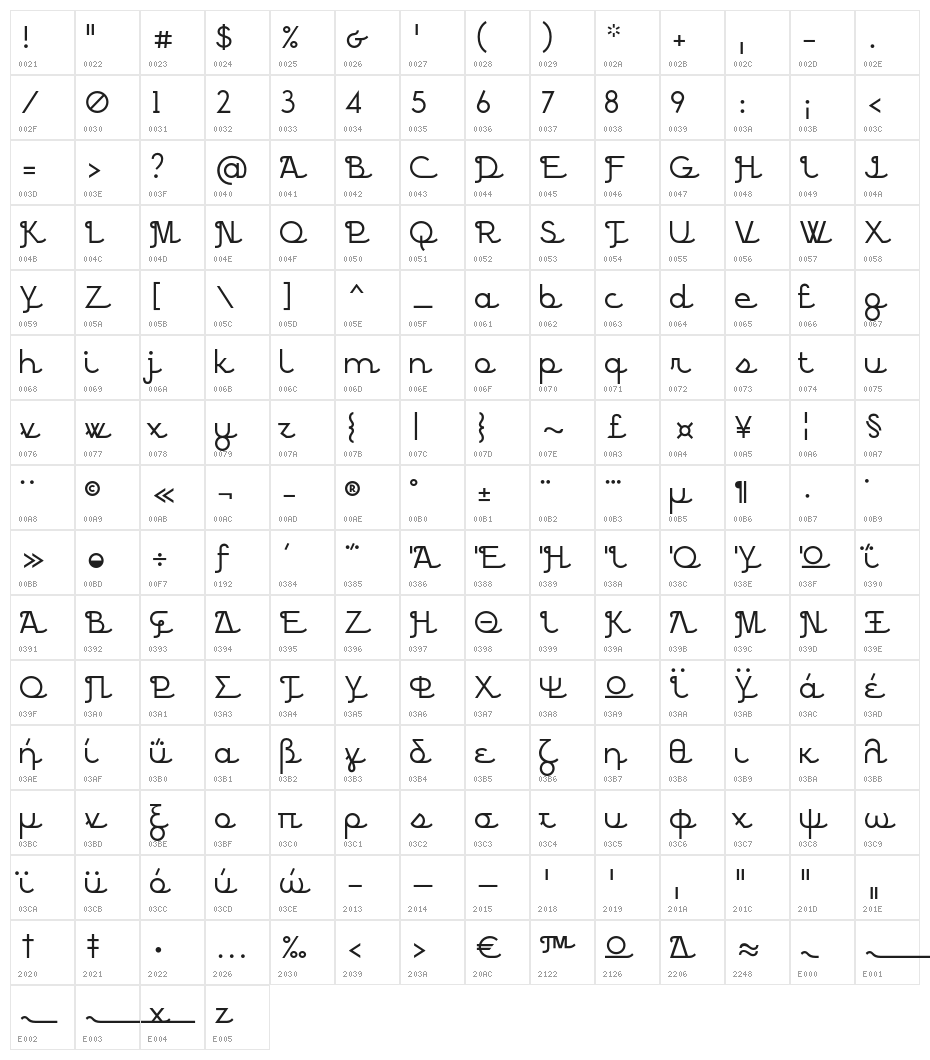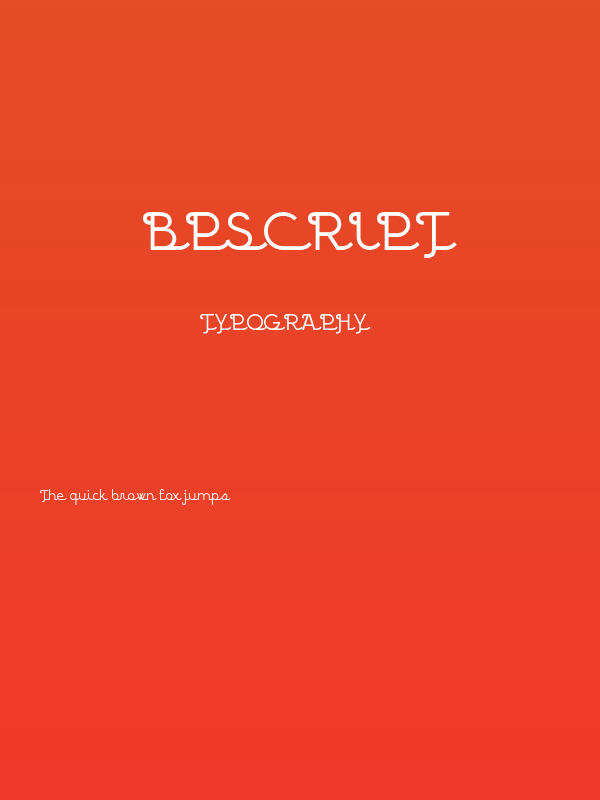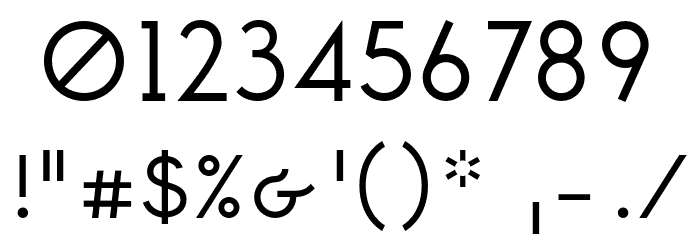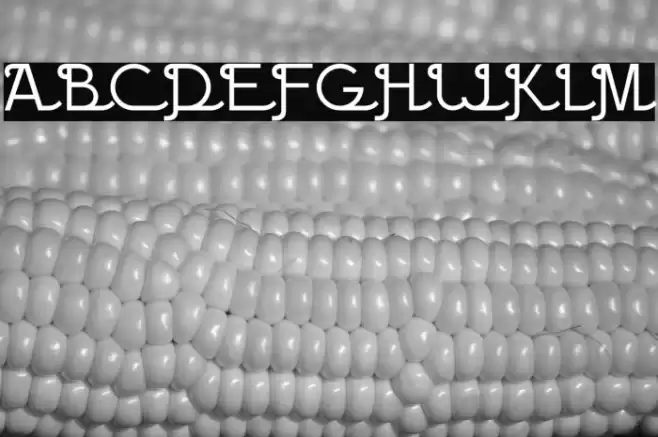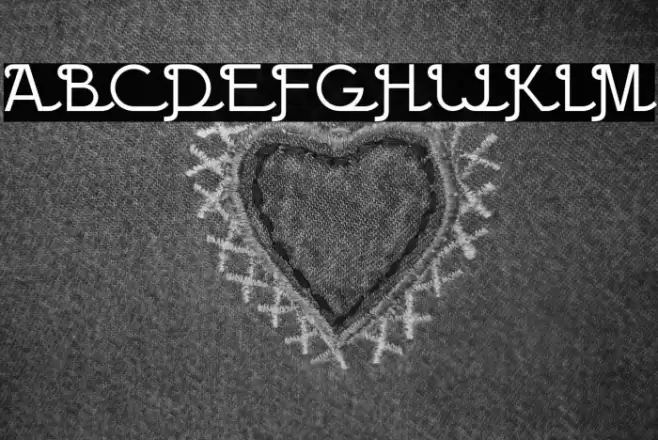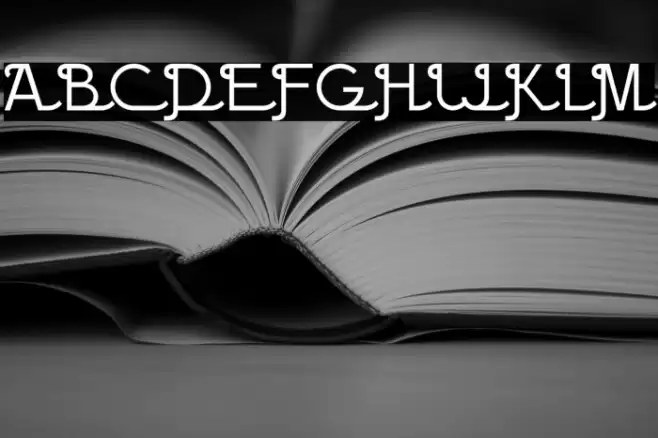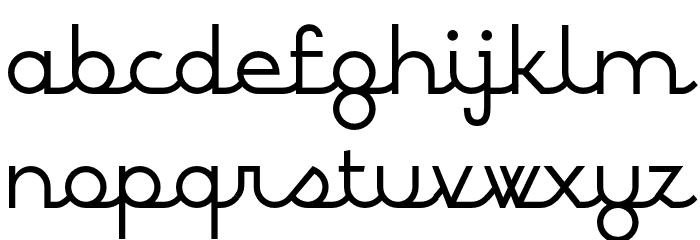
BPscript Font
| 用途 | Logos, Headlines, Creative projects |
| おすすめプロジェクト | Ideal for branding, packaging, and creative projects that require a touch of modern elegance and playfulness. |